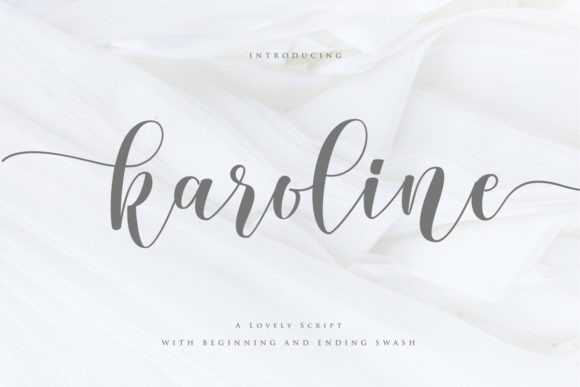
Karoline Font
Karoline is a gorgeous script font with amazing swashes. It has ligatures and alternates that will add a sophisticated flow to your designs. It is perfect for branding, wedding invitations, and romantic projects.